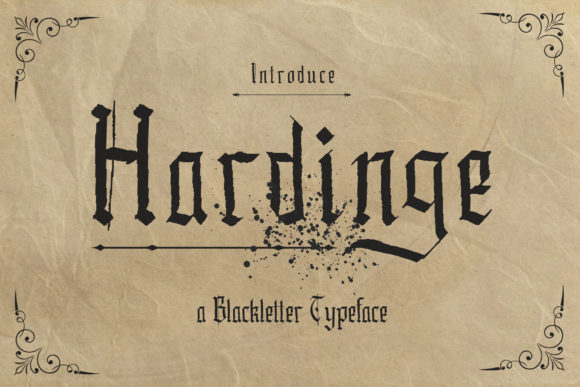
Journey through the tapestry of time and uncover the enigmatic charm of Hardinge, a blackletter font that oozes vintage allure. This captivating font, meticulously crafted by the artisans at TypeFactory, is not just a collection of letters; it is a portal to a bygone era, a testament to the enduring power of classic design.
Immerse yourself in the intricate web of Hardinge's glyphs, each one a testament to the artistry and dedication of its creators. The bold strokes and sweeping curves evoke a sense of nostalgia, a longing for the days when craftsmanship and attention to detail reigned supreme.
With Hardinge as your creative companion, your designs will transcend the ordinary and take on a life of their own. Envision your logos, branding materials, t-shirts, prints, and business cards adorned with this exquisite font. Each letter will speak volumes, conveying a message of sophistication, heritage, and timeless appeal.
Hardinge is more than just a font; it is a gateway to a world of endless creative possibilities. Unleash your imagination and let the vintage charm of Hardinge infuse your designs with a touch of magic. Embrace the allure of the past and create designs that stand the test of time.